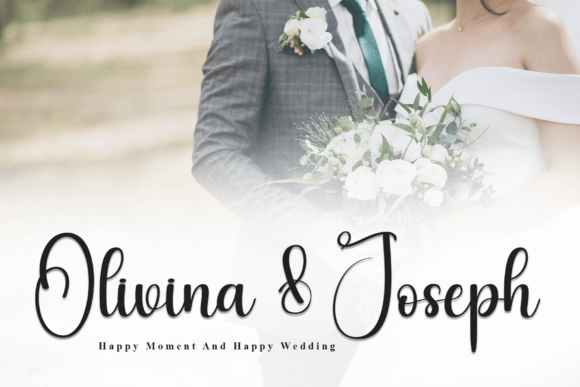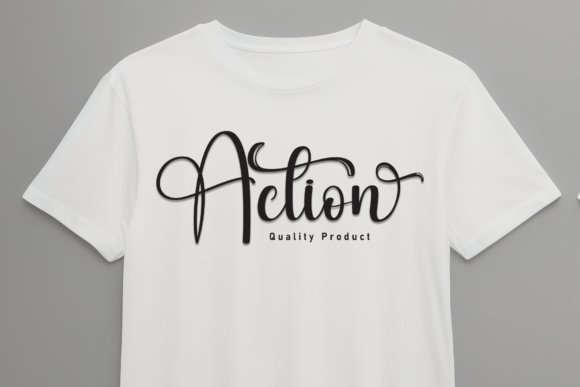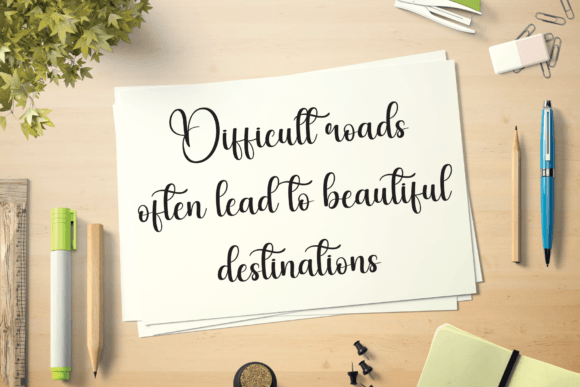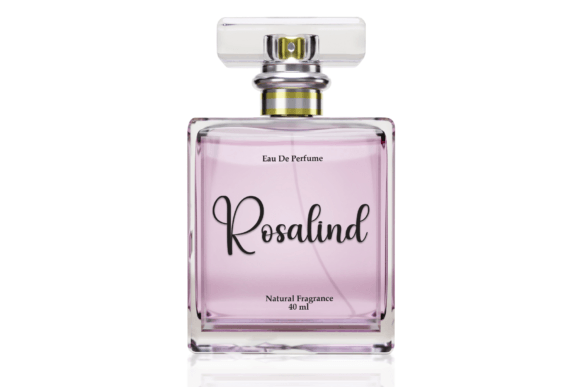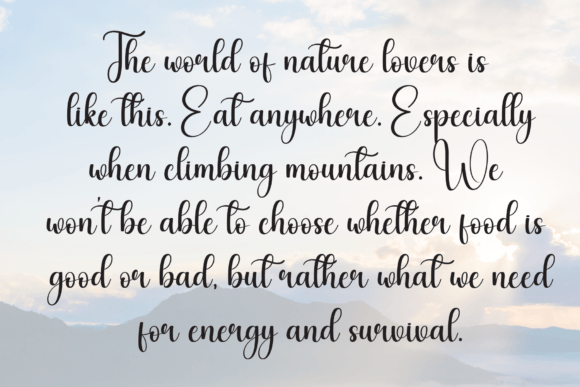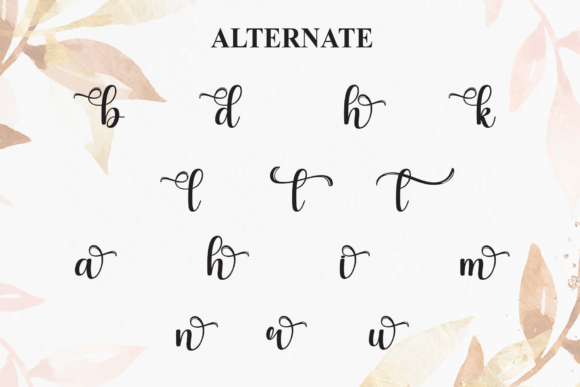
Do you remember that moment when a font just clicks, and you know you’ve found the one? For designers, this is often the spark that ignites a new project. It’s the moment when everything comes together, and the vision starts to take shape. For many, this moment was sparked by the Better Together Font – a lovely and timeless handwritten font that adds a personal touch to any design.
Whether you’re crafting a logo, branding a new business, or creating a beautiful quote, the Better Together Font is the perfect choice. Its unique and beautiful touch brings your design to life, making it stand out from the crowd. As a designer, you know the value of having the right tool at your fingertips. The Better Together Font is a valuable addition to any design arsenal, and its versatility makes it a go-to choice for designers of all levels.
Better Together Font Key Features
- Font Family: Better Together is a custom font designed for use in various digital platforms, including mobile apps, websites, and software.
- Character Count: The font includes a wide range of characters, including uppercase and lowercase letters, numbers, and special characters.
- Unique Characteristics: The Better Together font features a clean, modern design with a friendly and approachable tone, making it suitable for a wide range of applications.
Designer Review: Better Together Font
Overall, I was excited to dive into the Better Together Font, but my experience was a mix of great and not-so-great.
- Unique blend of modern and classic elements, creating a fresh and timeless look.
- Perfect for headings and titles, the font really shines when used in larger sizes.
- Well-suited for a wide range of industries, from tech to lifestyle and beyond.
- Not ideal for body text, as it can be difficult to read in smaller sizes.
- Lack of extensive language support, which may be a concern for international clients.
- No clear guidelines for pairing with other fonts, which can lead to inconsistent typography.
While the Better Together Font has some great qualities, its limitations hold it back from being a top choice for me. It’s a solid option for specific projects, but I wouldn’t recommend it as a go-to font for everyday use.
The Better Together Font is perfect for creating eye-catching headings, titles, and quotes. It’s also great for designing wedding invitations, event graphics, and social media posts. To get the most out of this font, experiment with different font sizes, colors, and styles to create a unique look.
Alternatives to Better Together Font for Designers
Pacifico is a beautiful, elegant script font that is perfect for creating a sense of warmth and sophistication. It’s ideal for use in branding, packaging, and advertising materials where a touch of elegance is required.
Compared to Better Together Font, Pacifico has a more refined and polished look, making it suitable for high-end branding and design projects. It lacks the bold and playful feel of Better Together Font, but excels in conveying a sense of luxury and sophistication.
Great Vibes is a modern script font that is perfect for creating a sense of fun and playfulness. It’s ideal for use in branding, advertising, and packaging materials where a touch of whimsy is required.
Q: What is the recommended font size for the Better Together Font?
The recommended font size for the Better Together Font varies depending on the application and the screen resolution. As a general guideline, we recommend using font sizes between 12pt and 24pt for body text, and 36pt to 48pt for headings. However, feel free to experiment and find the optimal font size that works best for your design.